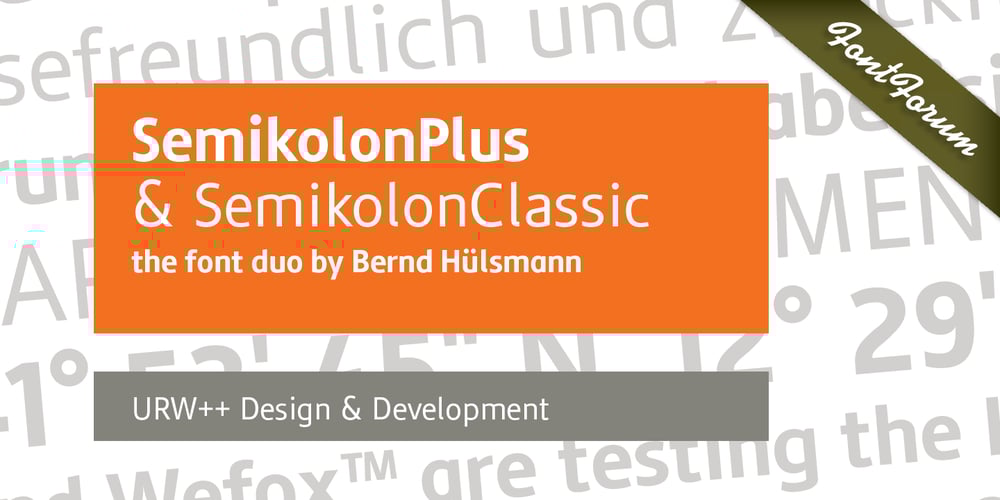
Semikolon Font Family was designed by Bernd Hülsmann and published by URW Type Foundry. Semikolon contains 4 styles and family package options. SemikolonPlus: Optimal readability by reduced, distinct letter forms. Appropriate for early readers of any age in schools and other educational institutions. SemikolonPlus minimizes the risk of confusing similar characters and therefore is predestinated for the use in text blocks, work sheets, educational games et cetera. Furthermore, with its accented characters, currency signs, true fractions and other special characters, SemikolonPlus is suited for numerous typographic tasks and – thanks to its distinct letter forms – offers great readability, even in lower point sizes. SemikolonPlus is recommended by the German association of alphabetization and basic education, which uses it for adult education, reading magazines, teaching material and the own YouTube-channel. SemikolonClassic: Is the familiar font with alternative character forms. E.g. it contains the lower case double level a and g, as well as glyphs harmonically formed to the typeface. The SemikolonClassic is suitable for diverse uses in various sectors. Together or in combination SemikolonPlus and SemikolonClassic offer extensive possibilities for the layout of text material with their heavy font weights.